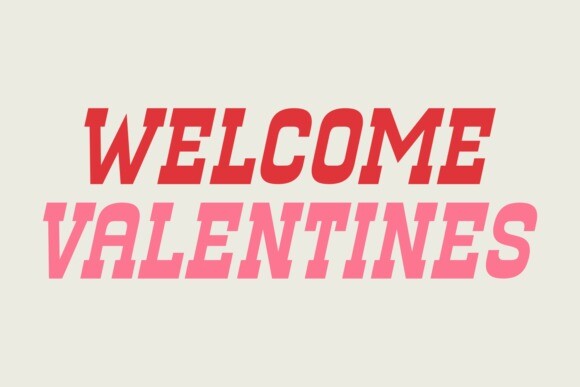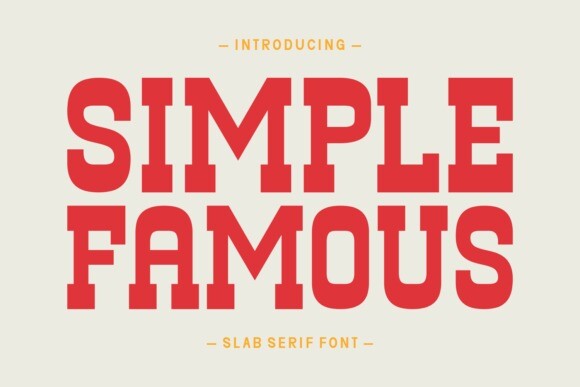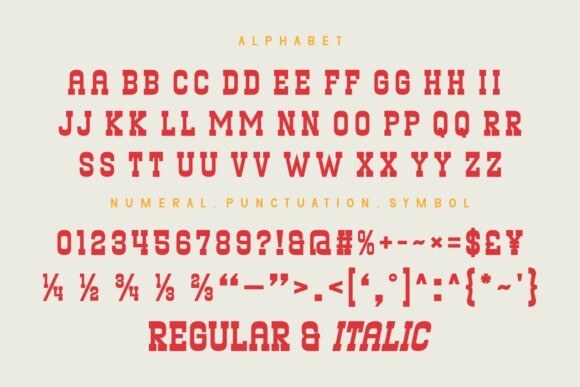
Simple Famous Font
Simple Famous Font is your go-to font for a clean and straightforward design. It’s a simple slab serif font that adds a touch of classic elegance to your projects. With clear lines and no-frills simplicity, Simple Famous ensures readability and versatility for various applications. Whether you’re working on branding, signage, or any project that calls for a timeless touch, this font effortlessly combines simplicity and sophistication for a stylish result. Keep it classic with Simple Famous.